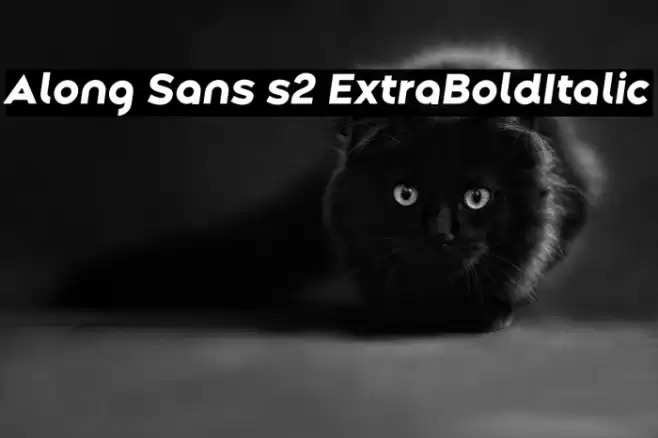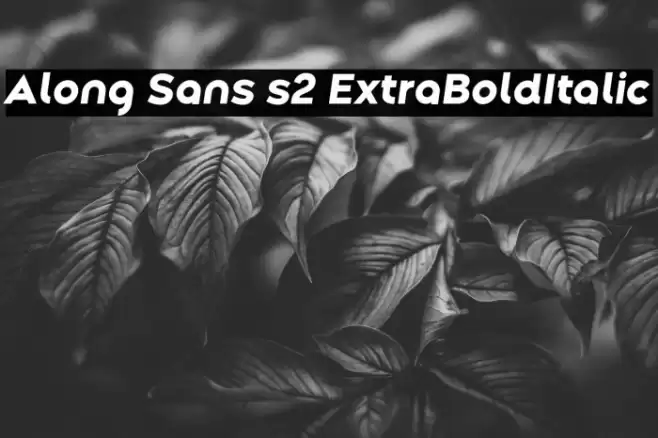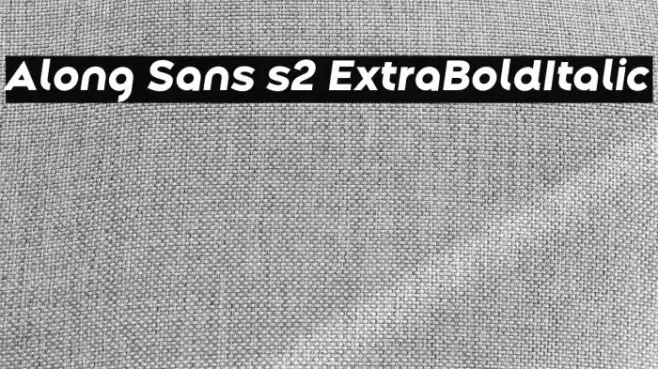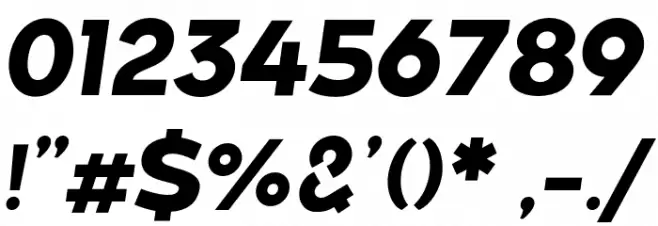
Along Sans s2 ExtraBoldItalic Font
Along Sans s2 ExtraBoldItalic Description
This font features a bold and dynamic style with a strong emphasis on geometric shapes. The letters are slightly slanted, giving an italicized appearance that adds a sense of motion and modernity. The strokes are thick and consistent, contributing to a robust and impactful visual presence. The characters are well-spaced, ensuring readability while maintaining a compact form. The numerals and special characters follow the same bold and italicized design, ensuring uniformity across all elements. This font is ideal for making statements and capturing attention with its assertive and contemporary look.
A bold, italicized sans-serif font with a modern geometric style from Uncategorized fonts.
- Proposed Projects: Ideal for branding, advertising, headlines, and digital media where a strong, modern presence is desired.
- Use Case: Headlines, Logos, Advertising